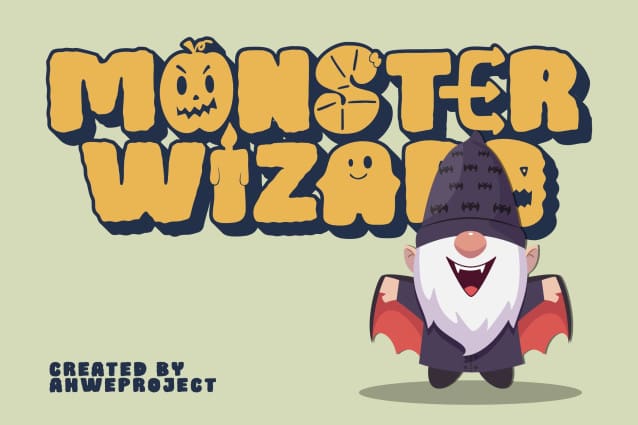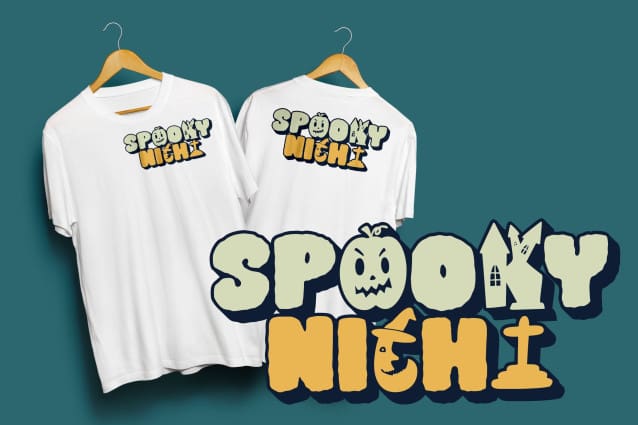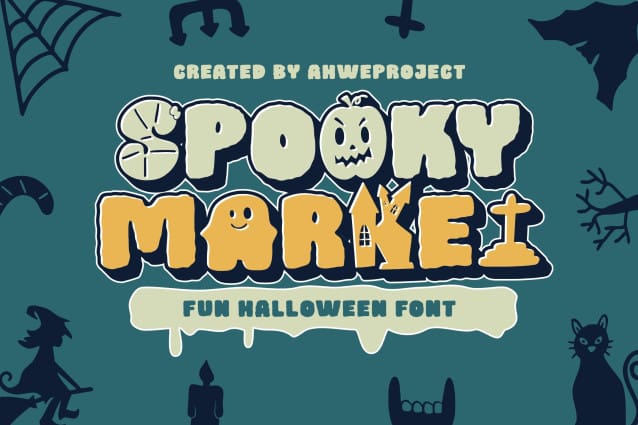
Spooky Market Font
Spooky Market Font is a bold and spooky decorative font with cute letters. Add it to your Halloween crafts, horror movie posters, t-shirts, and anything else that requires a spectacular look. Masterfully designed to become a true favorite, this font has the potential to bring each of your creative ideas to the highest level!